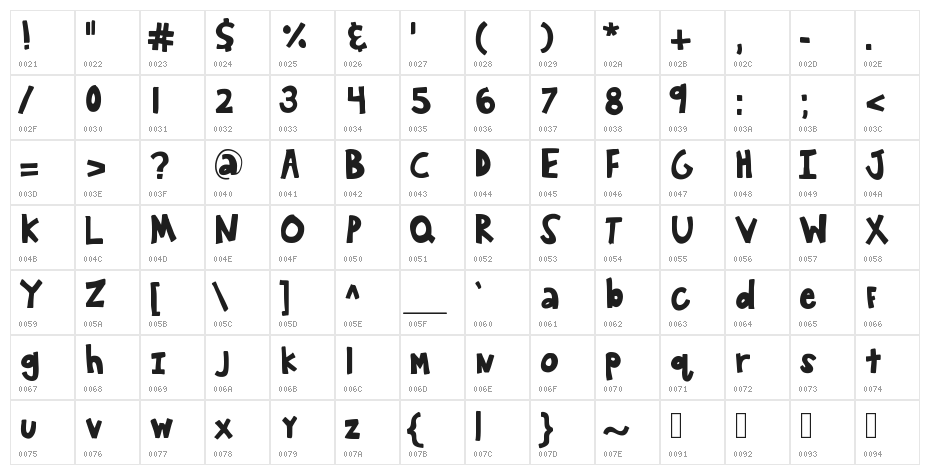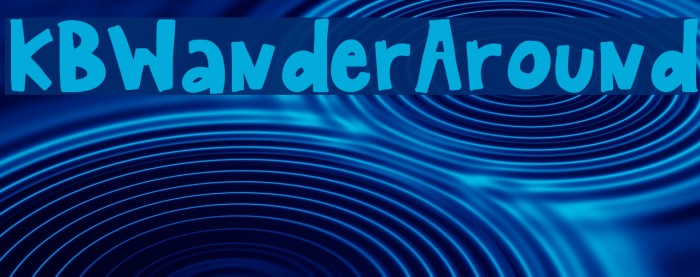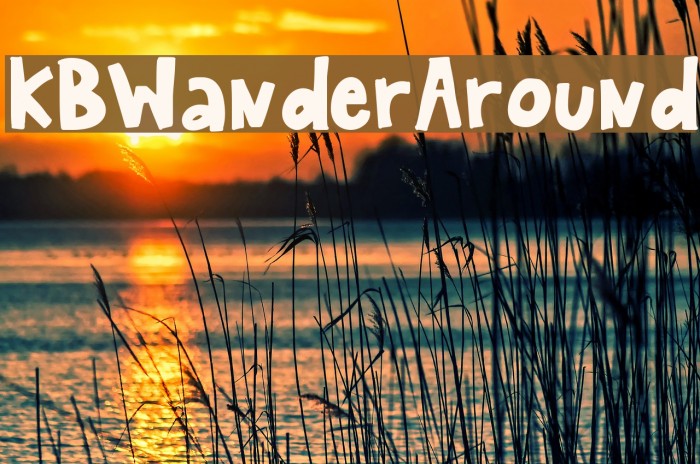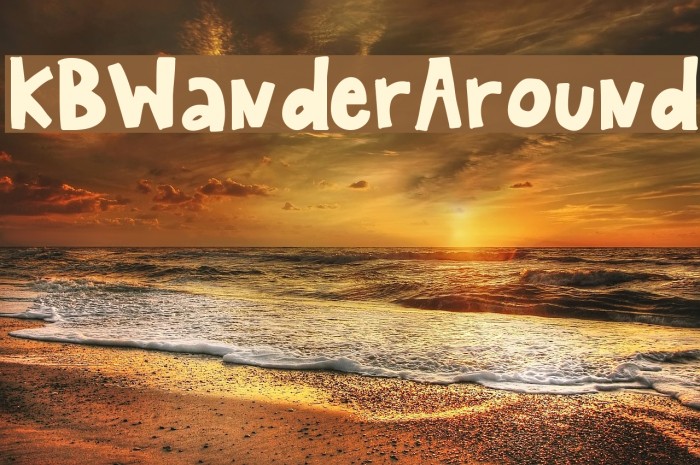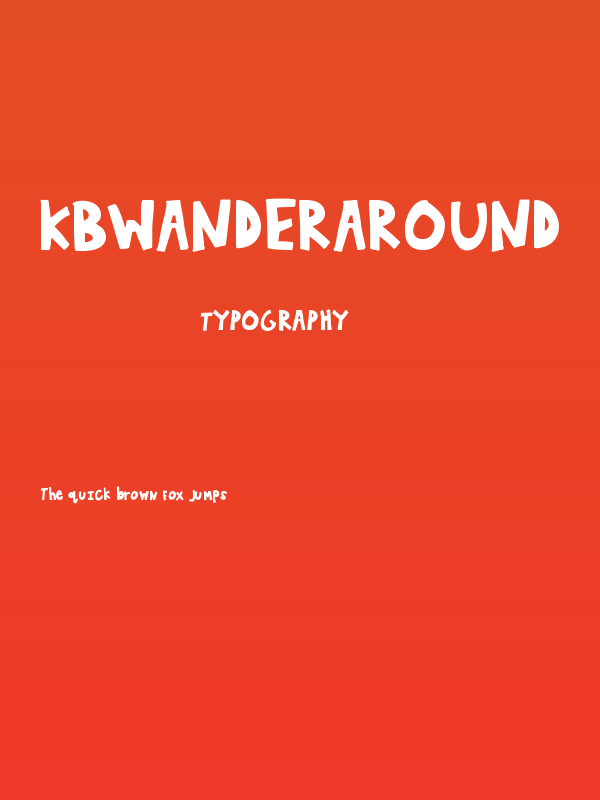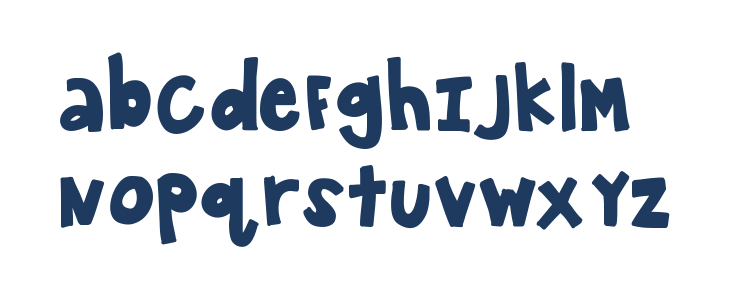
KBWanderAround Font
KBWanderAround Description
This playful and bold font features a hand-drawn style with irregular, quirky shapes that give it a lively and energetic appearance. The characters are thick and rounded, with a slightly uneven baseline that adds to its whimsical charm. The uppercase and lowercase letters maintain a consistent style, while the numbers and special characters integrate seamlessly with the overall design. This font exudes a sense of fun and creativity, making it ideal for projects that require a touch of personality and flair.
| Proposed Projects | Ideal for children's books, playful branding, posters, and creative invitations. |